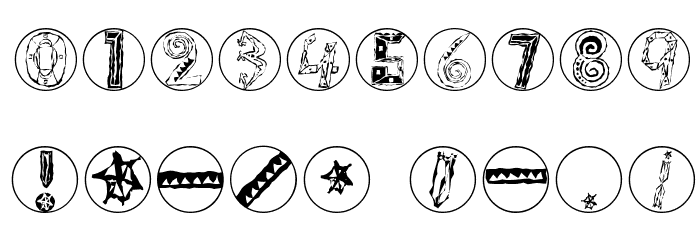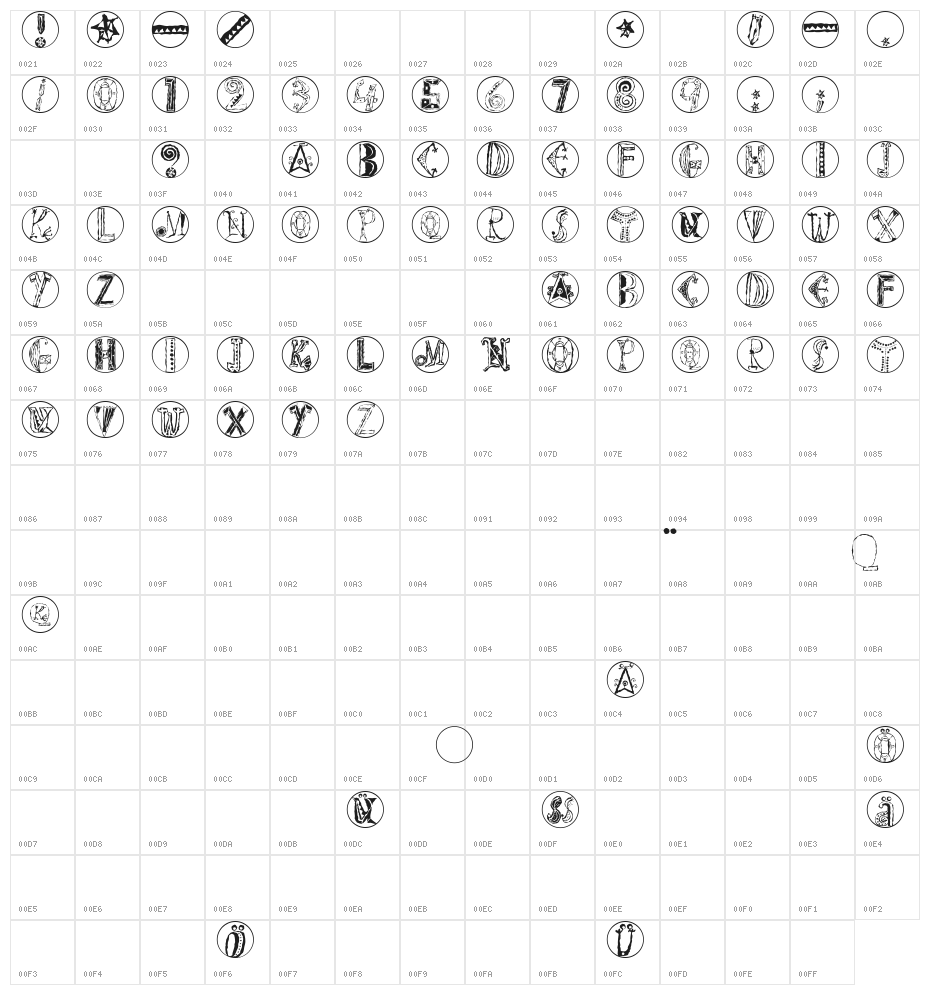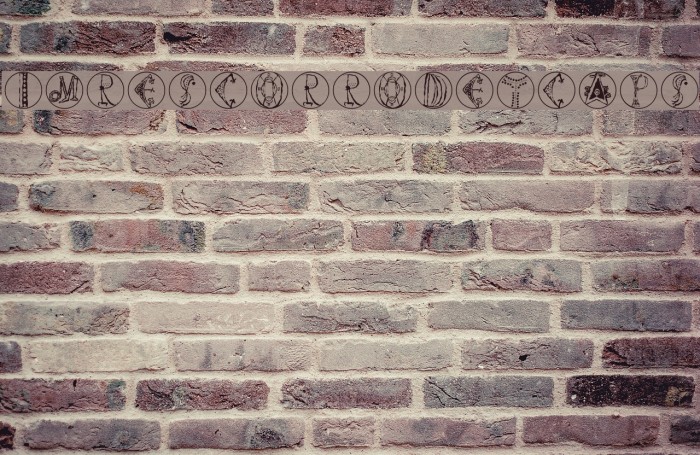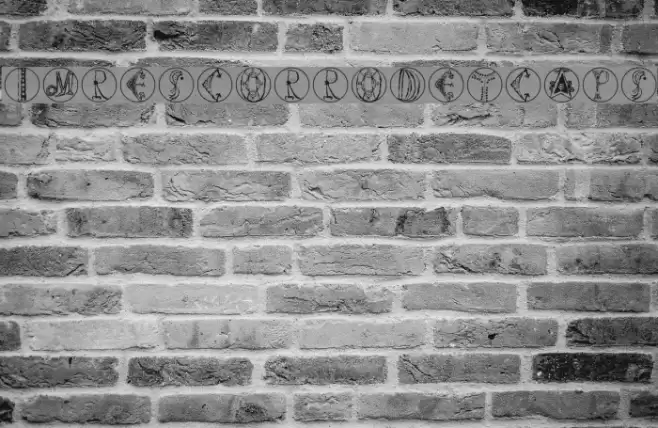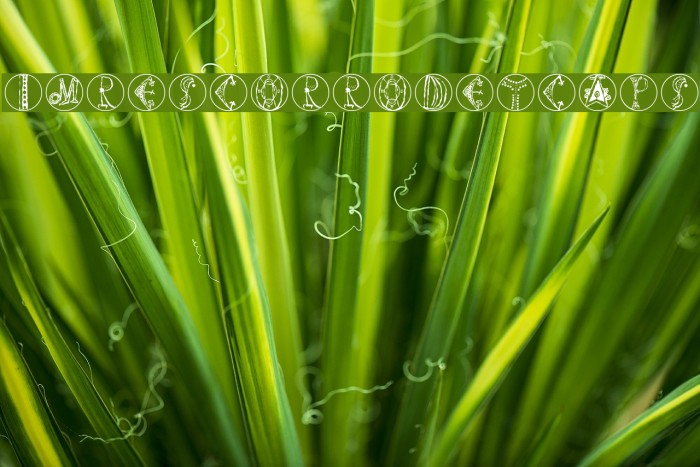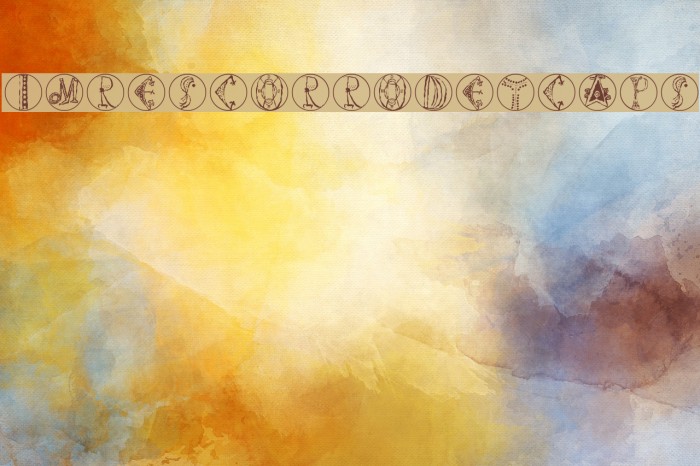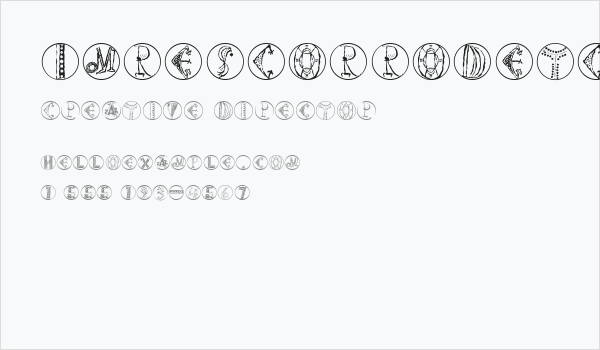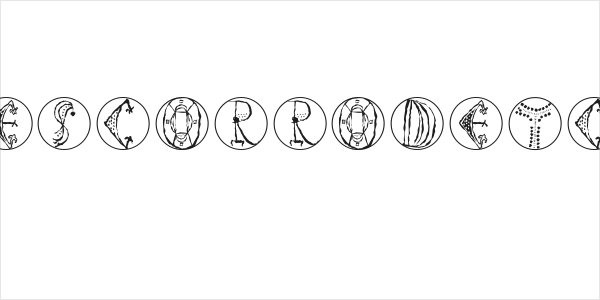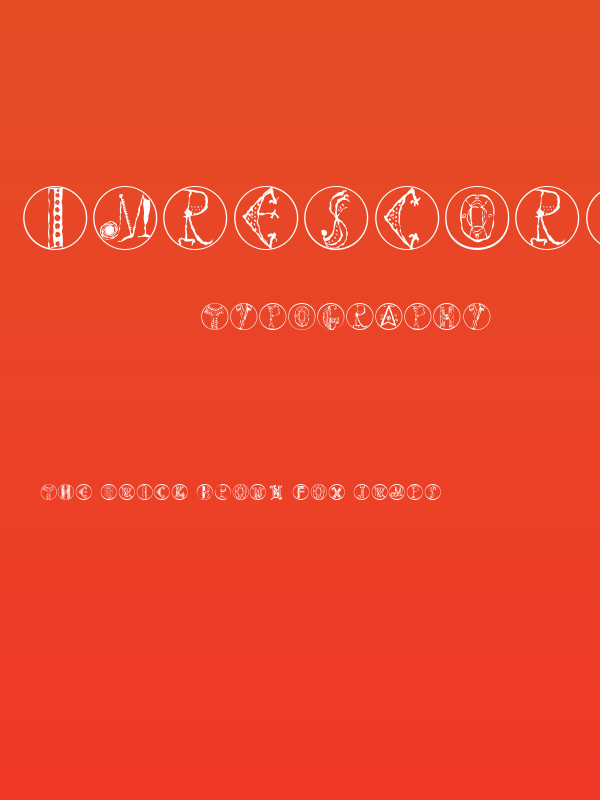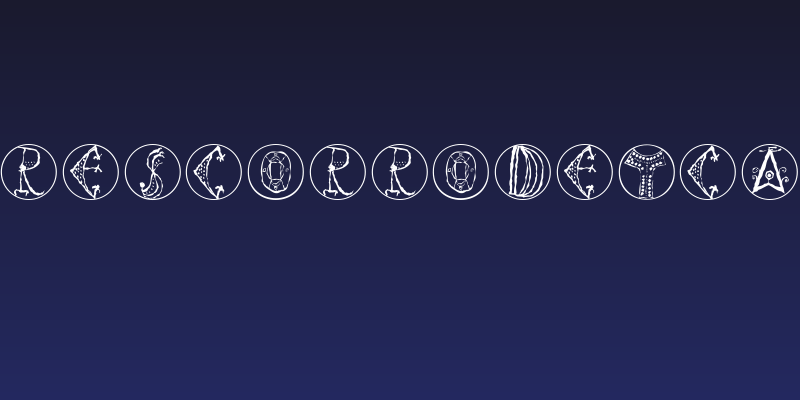
ImresCorrodetCaps Font
ImresCorrodetCaps Description
This decorative font features a playful and eclectic design, with each character enclosed in a circle and adorned with unique artistic elements. The uppercase and lowercase letters, as well as numbers and special characters, exhibit a variety of textures and patterns, ranging from stars and stripes to abstract shapes and intricate line work. The overall appearance is whimsical and imaginative, making it stand out for creative projects. The font's distinct style is perfect for capturing attention and adding a touch of fun and creativity to any design.
| Use Case | Headlines, Logos, Artistic projects |
| Proposed Projects | Ideal for children's book covers, playful branding, creative posters, and artistic invitations. |